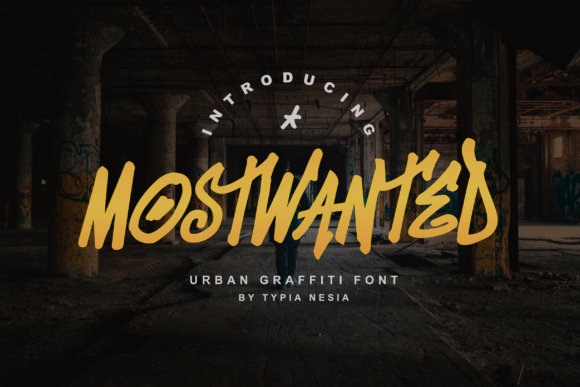
Mostwanted Font
Get Ready to Ignite Your Designs with Mostwanted: An Urban Ink-spired Display Font
Welcome to the world of Mostwanted, a modern display font that embodies the raw energy and vibrant spirit of urban graffiti art. Unleash your creativity with this captivating typeface, inspired by the bold strokes and expressive lines of street art, and watch your designs transform into eye-catching masterpieces.
Mostwanted isn't just a font; it's a bold statement, a voice that demands attention. Its unique and dynamic style adds an edgy and stylish twist to any creative project, whether you're designing logos, posters, flyers, social media graphics, or merchandise. Imagine your designs infused with the vibrant energy of graffiti, grabbing attention and leaving a lasting impression.
With Mostwanted, you'll have the power to transform ordinary words into captivating works of art. Its bold and modern letterforms create a visual impact that will make your designs stand out from the crowd. Whether you're a graphic designer, a social media enthusiast, or simply a creative soul looking to add an urban flair to your projects, Mostwanted is the perfect choice for you.
Dive into the world of Mostwanted and let your creativity run wild. Experience the thrill of turning your ideas into captivating visuals that resonate with your audience. Let your designs speak volumes with the urban edge and modern aesthetics of Mostwanted.